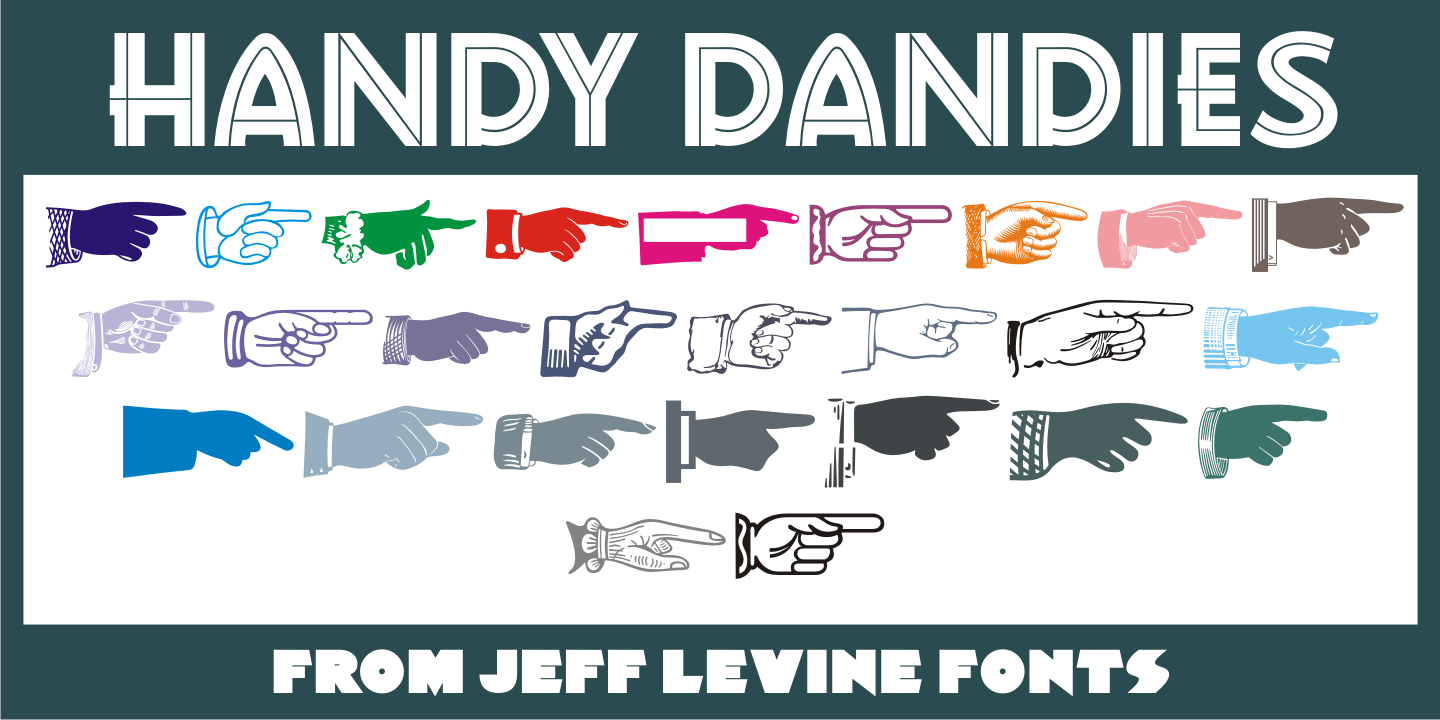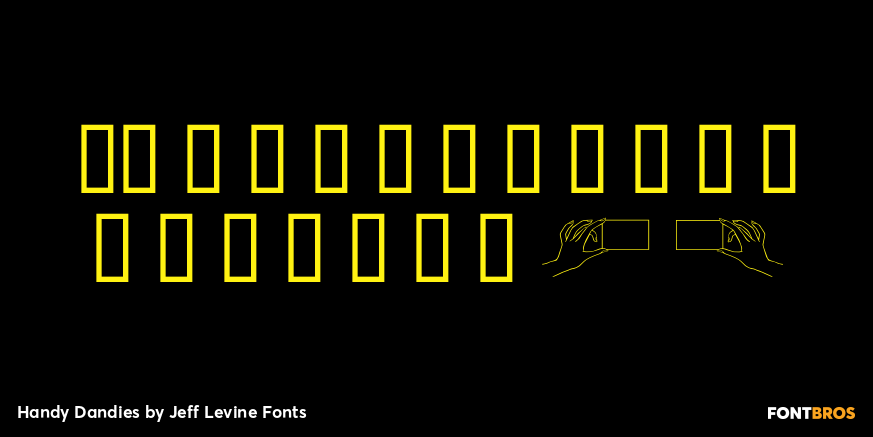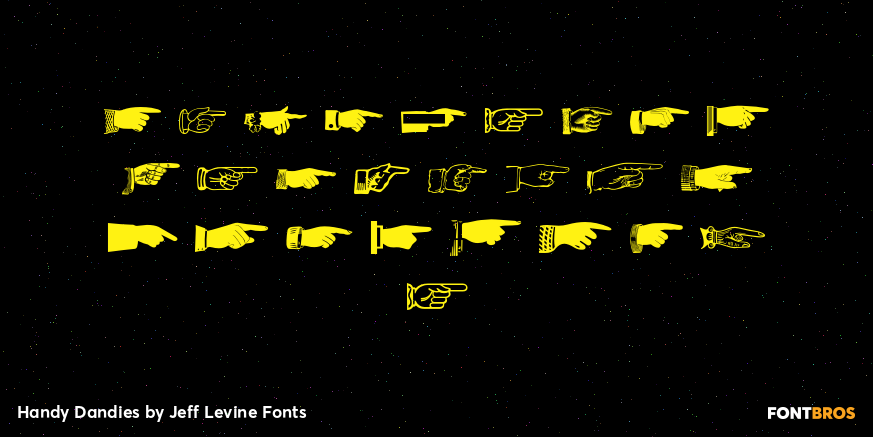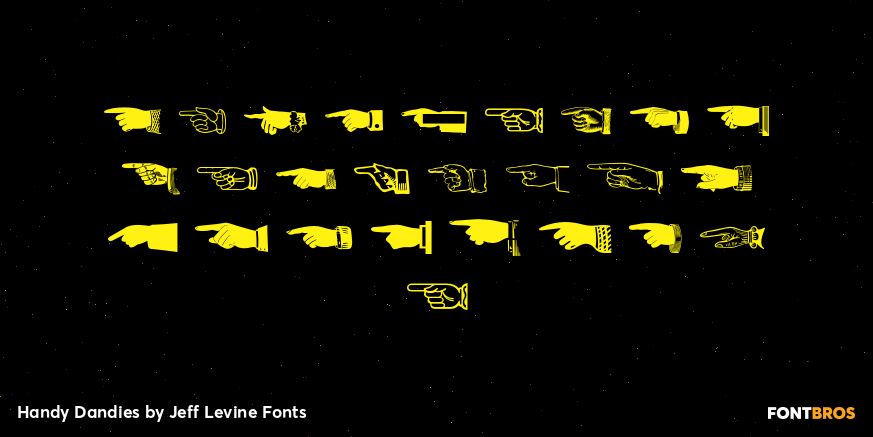
Handy Dandies
Handy Dandies JNL is a third collection from Jeff Levine Fonts of pointing hands along with a few card holders thrown in for good measure. The images were re-drawn from vintage source material and these embellishments (also known as "Printer's Fists" or "Bishop's Fists") will enhance wood type projects as well as contemporary designs.